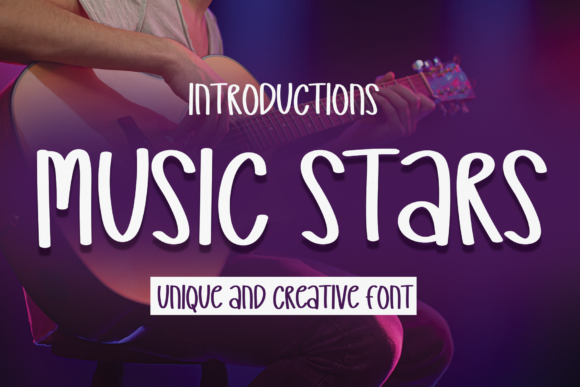
Step into a world of captivating designs with Music Stars Font, an enthralling handwritten font that brings life to your creative visions. Its enchanting strokes and graceful curves evoke a sense of playfulness, making it the perfect choice for a wide array of projects.
Immerse yourself in the beauty of Music Stars Font, meticulously crafted to elevate your designs with its authentic, handwritten charm. Let your imagination soar as you explore endless possibilities, from captivating wall displays to heartfelt wedding invitations. Express your unique style through eye-catching social media posts, logos that resonate, and advertisements that leave a lasting impression.
Unleash your creativity with Music Stars Font and transform ordinary designs into extraordinary expressions. Elevate your product packaging and designs with an authentic touch that speaks to your customers' hearts. Create labels that captivate and photography that tells a story. Add an artistic flair to watermarks, invitations, and stationery, leaving a lasting impression on your audience.
With Music Stars Font, the possibilities are boundless. Embrace the beauty of handwritten artistry and watch your projects come to life with a touch of magic. As the perfect companion for any project that craves an authentic feel, Music Stars Font is the key to unlocking a world of creative wonders.